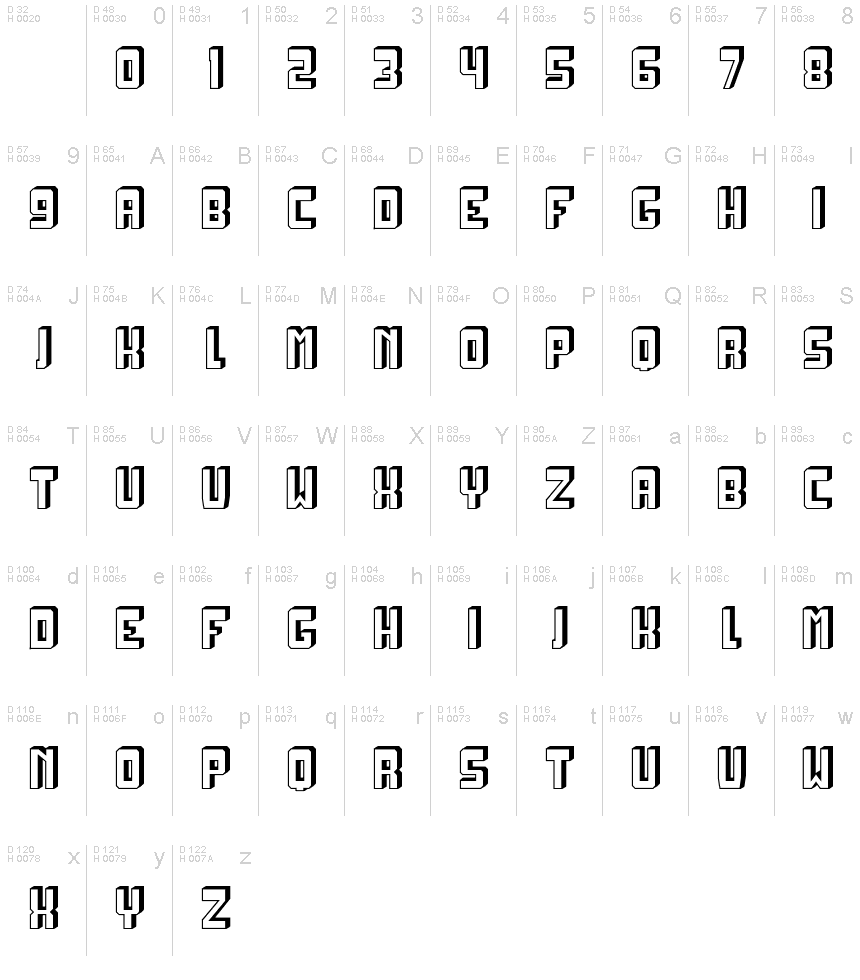
Computer Condensed
With its sleek and modern design, Computer Condensed is the perfect font for any project that requires a clean and professional look. The semi-bold typeface provides just the right amount of weight to make your text stand out, while the semi-condensed width ensures that you can fit more words on a line without sacrificing readability. The 3D style adds depth and dimension to your text, making it ideal for logos, headlines, and other branding materials. Whether you're designing a website or creating marketing materials for your business, Computer Condensed is sure to impress with its bold and impactful appearance.